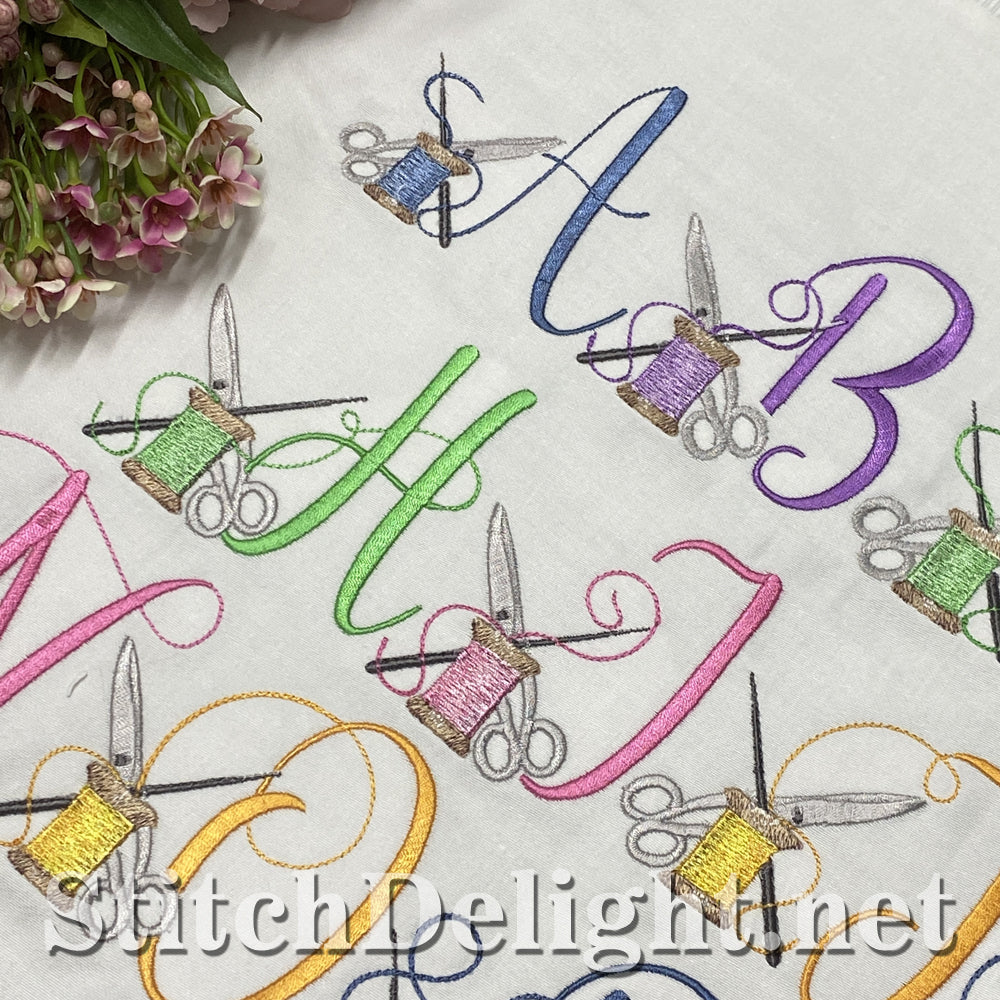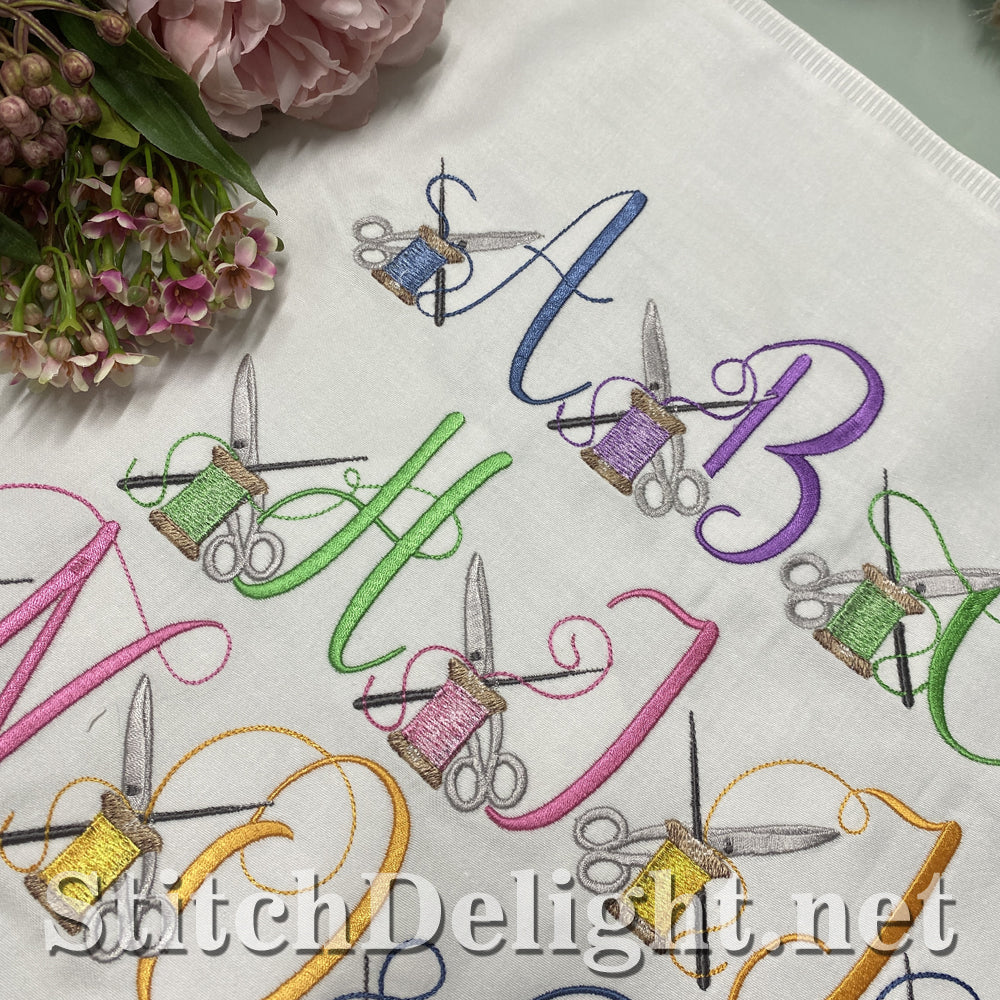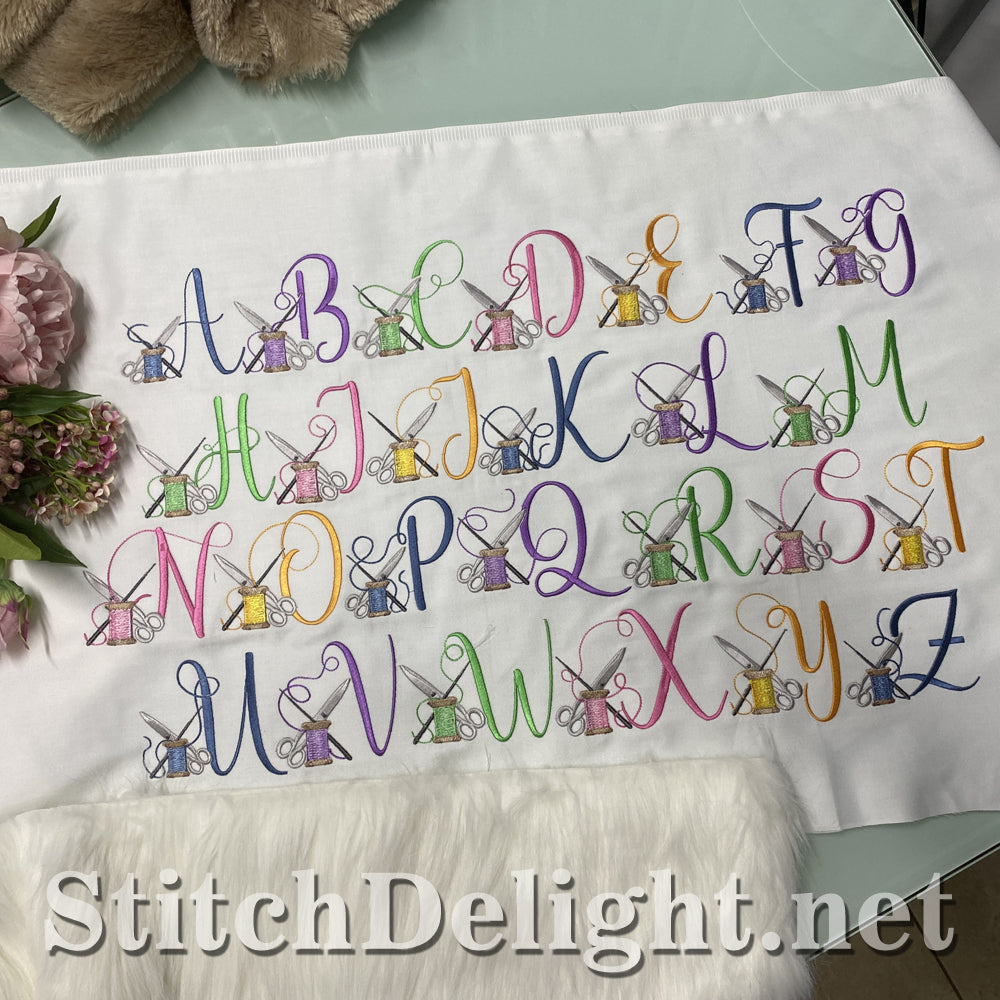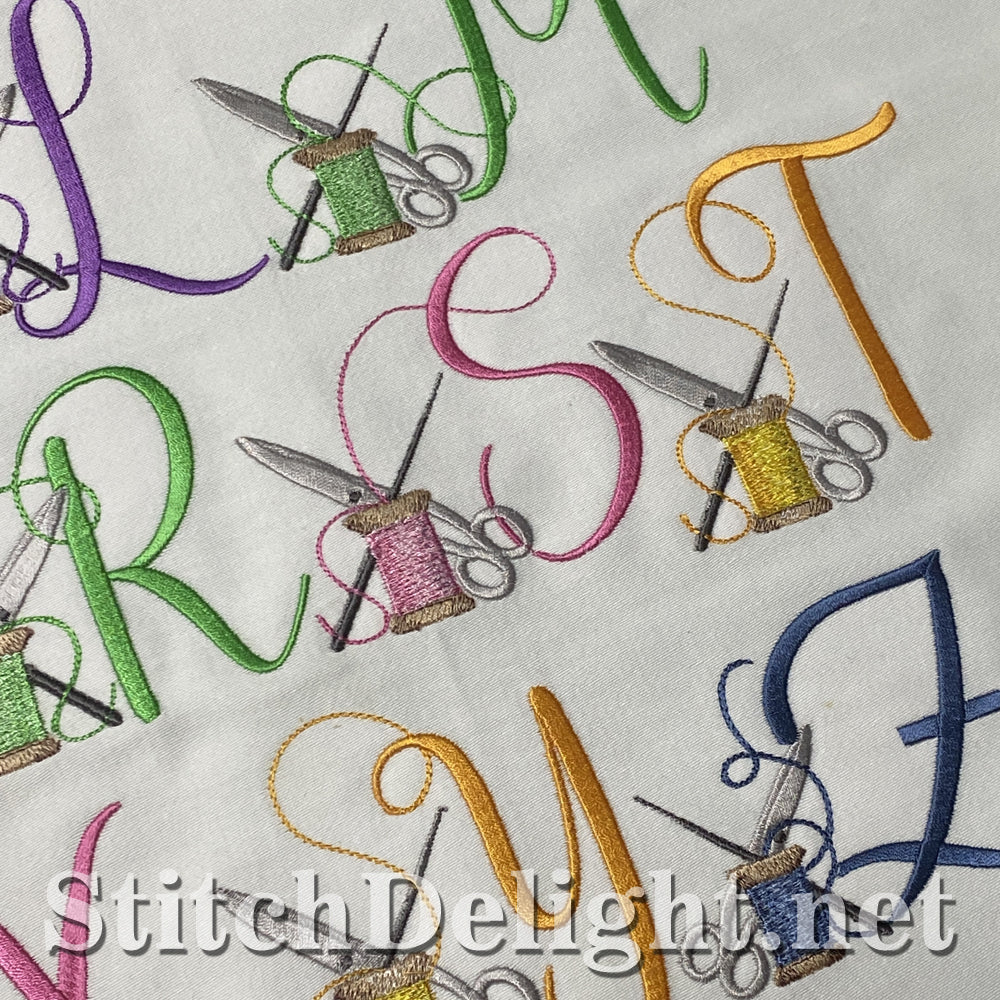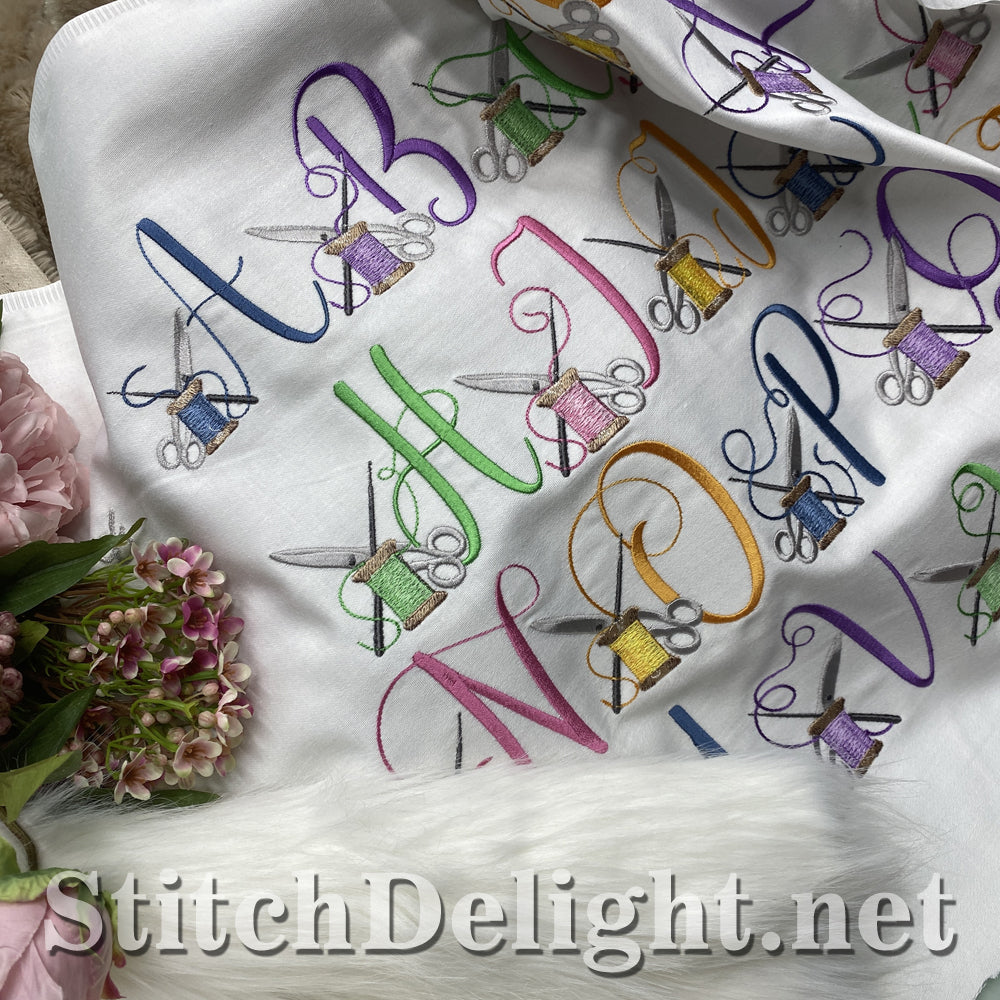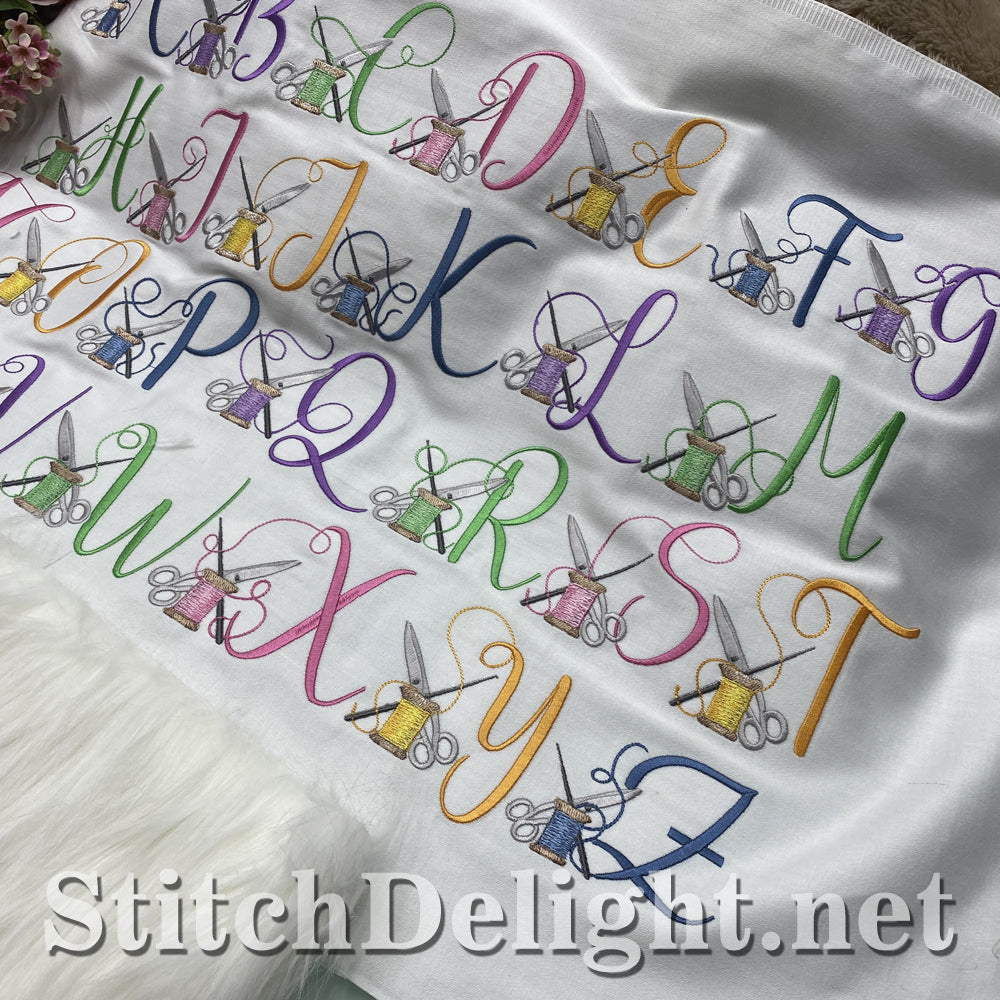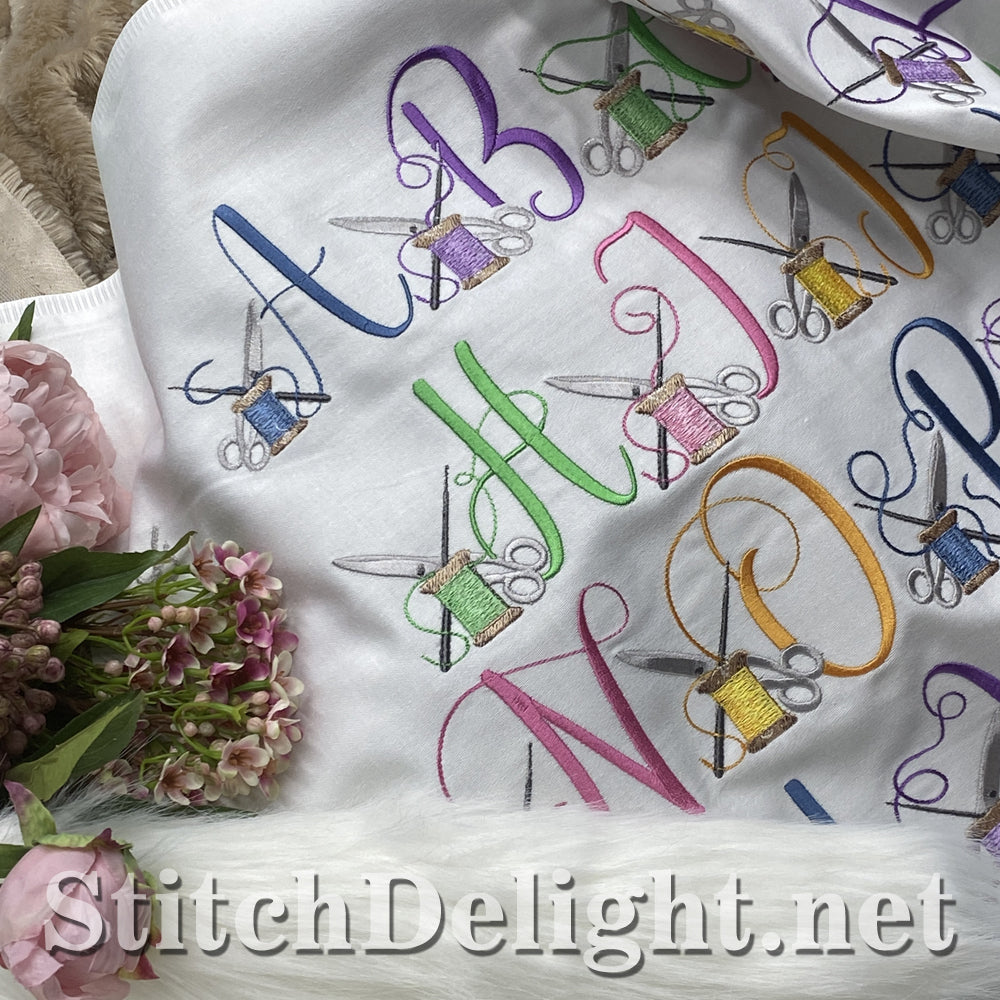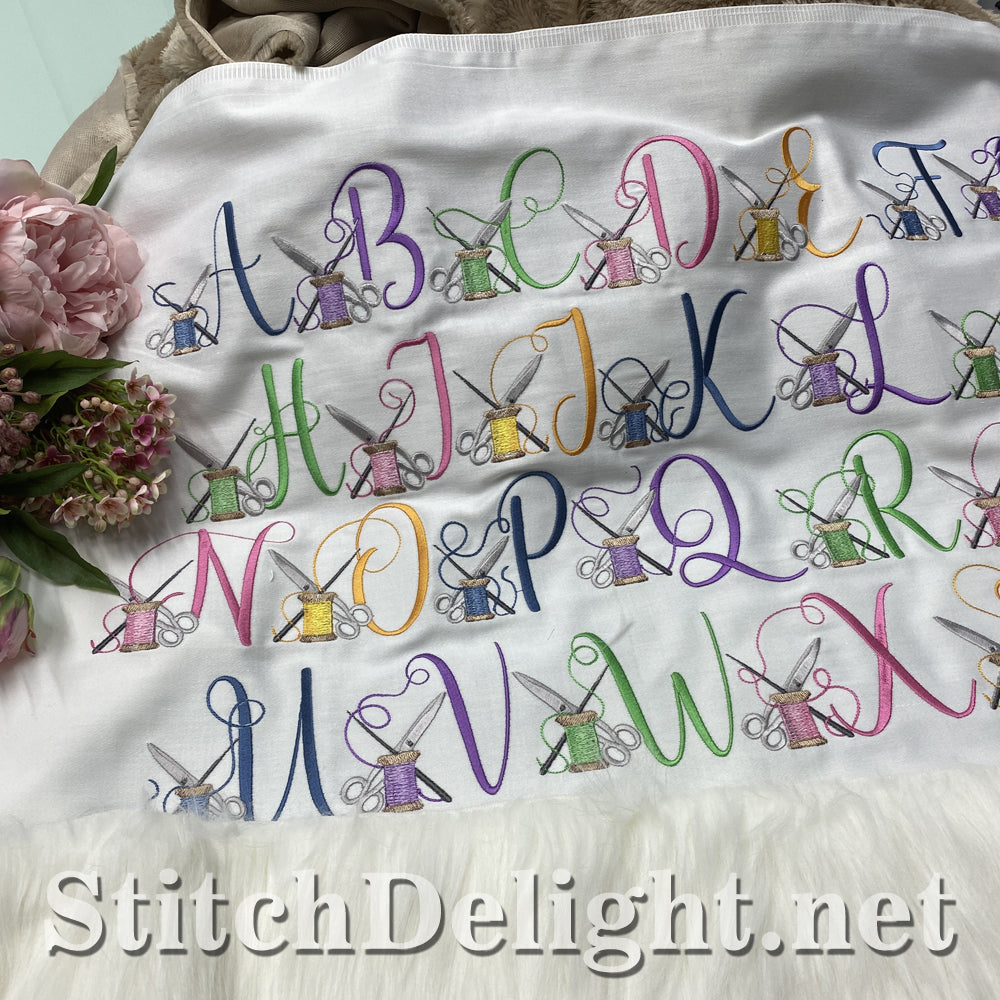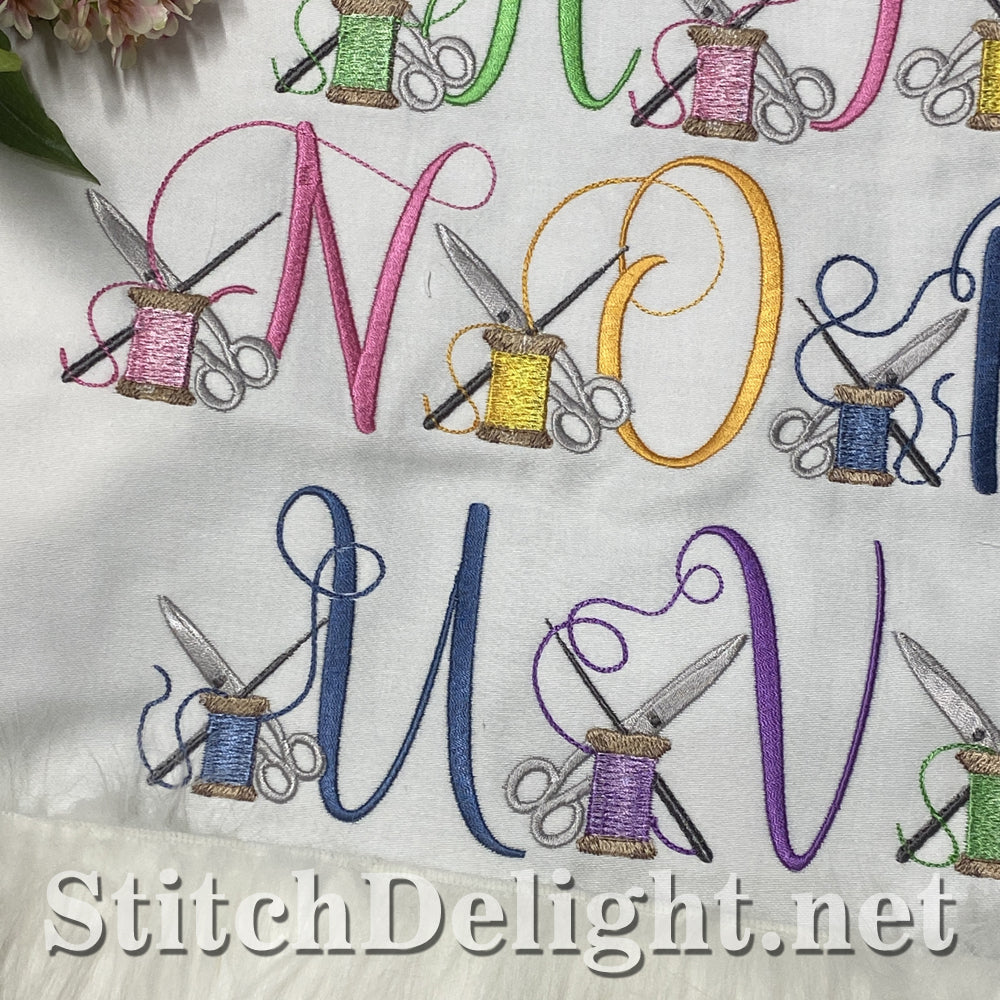
SDS1773 Stitch Delight Font
This font's name is Stitch Delight as it's the same font we used in our logo! It has an average height of 3.3" and has ONLY 6 colours! Both SDS1764 and SDS5401 will make great matching fonts.